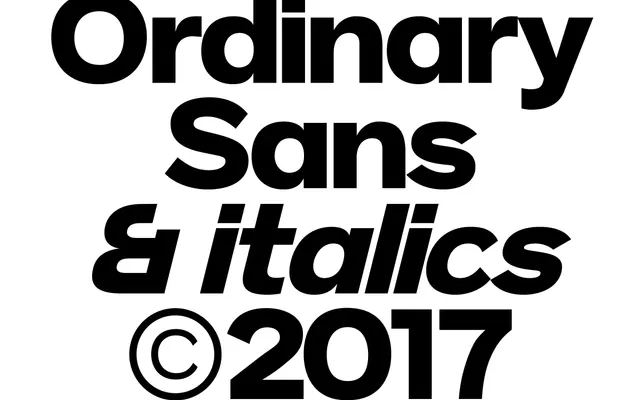
Ordinary Sans
Trulytype · 2014
A geometric sans with text and display weights, designed as a companion to the Everyday Sans family and released in 2014 with broad Latin script coverage.
Described as drawing from the quiet beauty of daily routines, Ordinary Sans pairs clean geometric proportions with subtle character details intended to reveal themselves with extended use. The family spans 12 weights with matching italics, split between refined text weights for smaller settings and bolder display cuts for large-scale use. Latin coverage extends across a wide range of European and minority languages.
The page categorises it as Display and Sans Serif with a geometric touch; clean, balanced proportions and a modern construction place it firmly in the geometric sans tradition.